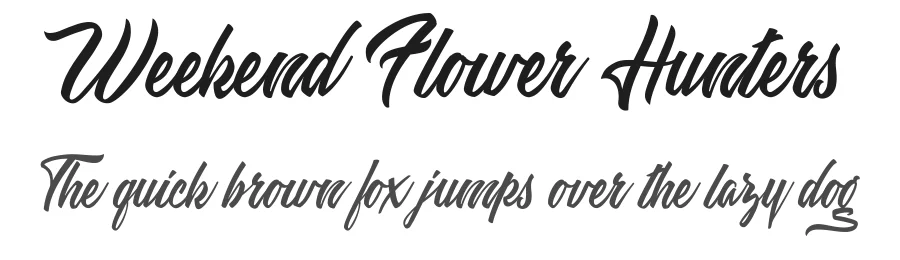
About Meat Buckets Font
The full commercial version includes a set of 86 alternate glyphs, contextual ligatures, and underlinings to create your own style!
Every lowercase is provided with at least one alternate!
Clem | StereoType
Meat Buckets Font is a script font that shines as a display or heading face. Pair it with a clean sans-serif or serif font for body text β the contrast creates a clear hierarchy while the two styles stay balanced and easy to read.
Meat Buckets Font
by StereoType